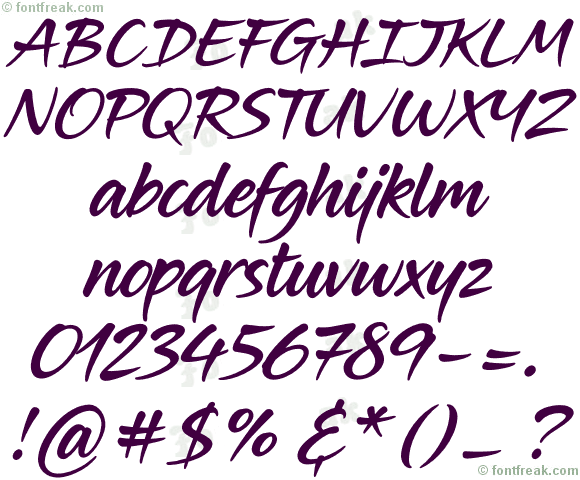
MidnightDrive
About MidnightDrive
MidnightDrive is a captivating display font designed by Youssef Habchi, classified as a script typeface. This font features a unique blend of elegance and boldness, making it a striking choice for various design projects. The strokes exhibit a moderate contrast, which adds a dynamic flair to the overall appearance. With its fluid, cursive forms and slightly varying stroke weights, MidnightDrive captures attention while maintaining readability. The spacing is well-balanced, allowing for seamless integration into both digital and print mediums.
This font is ideal for a range of creative applications. It works beautifully for wedding invitations, where its stylish curves can convey romance and sophistication. MidnightDrive is also perfect for movie posters, lending an air of drama and intrigue. Additionally, it can enhance restaurant menus, giving them a touch of class and personality that appeals to diners. For branding or marketing materials, MidnightDrive can elevate small business advertising, showcasing a modern yet friendly aesthetic that resonates with target audiences.
Graphic designers, small business owners, and content creators will find this font particularly appealing. Its versatile style allows for creative expression while still being functional. Whether you’re crafting a visual identity or designing promotional materials, MidnightDrive provides a unique character that stands out.
What sets MidnightDrive apart is its ability to blend artistry with practicality. The font's distinctive style not only catches the eye but also evokes a sense of creativity and passion. For those looking to make a statement, the MidnightDrive font free download offers an excellent opportunity to incorporate this standout typeface into your projects, ensuring they leave a lasting impression.